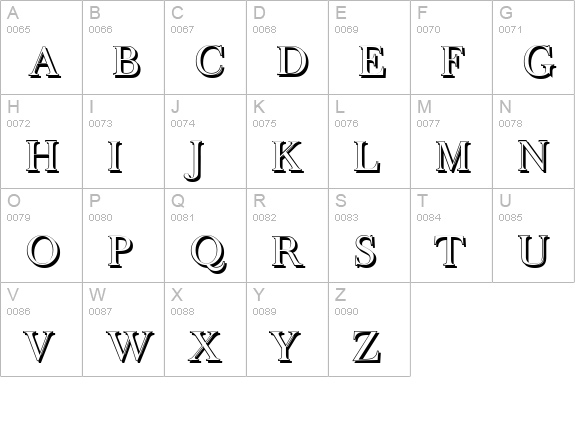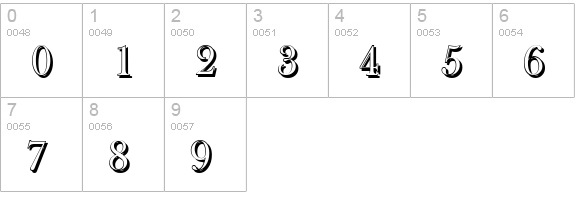
BaskerOldShadow-Regular Font Details
BaskerOldShadow-Regular is the standard, neutral variant in the BaskerOldShadow typeface family \xE2\x80\x94 well suited to general body text, paragraphs, and standard typographic work.
BaskerOldShadow-Regular font is a classic and elegant typeface that brings a touch of sophistication to any design project. Its timeless serifs and stylish shadow effect make it perfect for adding a touch of vintage charm to your creations. This versatile font is ideal for use in branding, invitations, posters, and more. What makes BaskerOldShadow-Regular font even more appealing is that it is completely free to download at FontsMarket.com. Whether you're a designer looking to add a new font to your collection or a hobbyist working on a personal project, this font is a fantastic choice. With its beautiful design and professional quality, BaskerOldShadow-Regular font is sure to make a lasting impression.